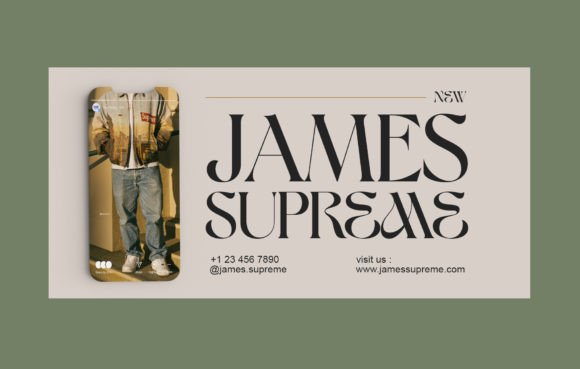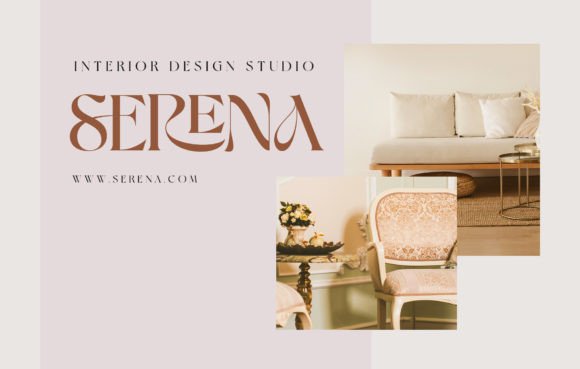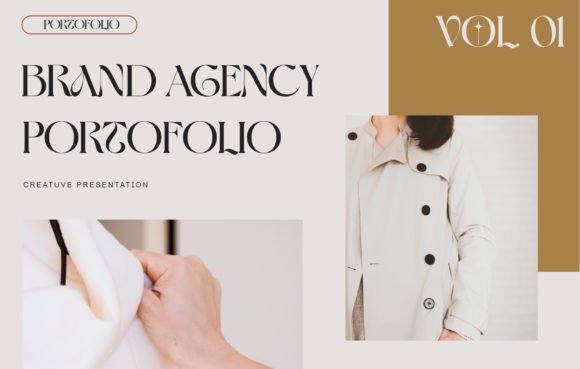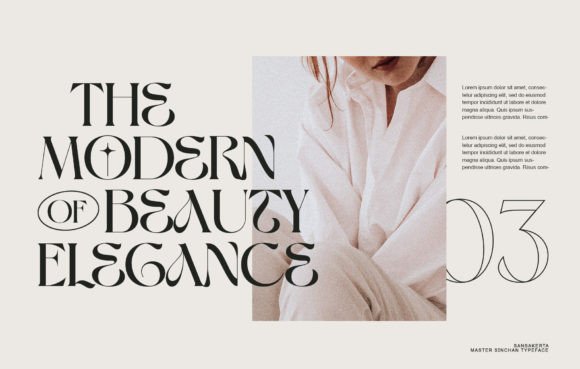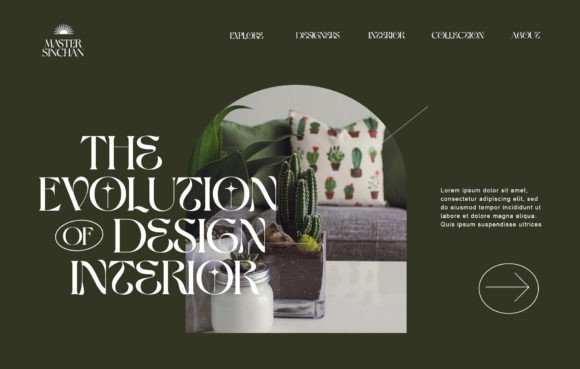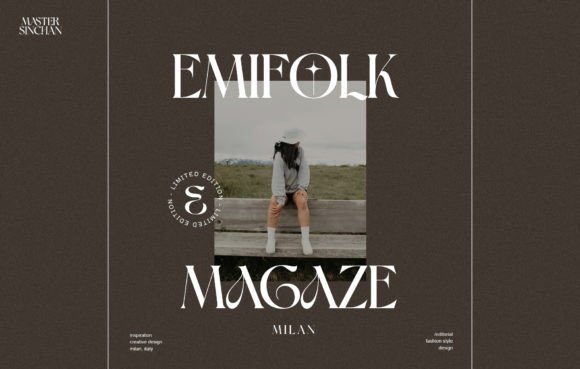
Introduction to Master Sinchan Font
Have you ever stared at a blank canvas, eager to bring your creative vision to life, only to be stuck on the perfect font? It’s a moment we’ve all been there, designers and non-designers alike. But what if I told you there’s a font that could change the game for your next project? Welcome to the world of Master Sinchan Font, a stunning serif font that’s about to become your new go-to design resource.
With its elegant and bold style, Master Sinchan Font is the perfect addition to any creative project. Whether you’re designing a beautiful wedding invitation, creating eye-catching social media posts, or working on a high-quality design piece, this versatile font is sure to impress. And the best part? It’s available for free download, making it a valuable asset for designers of all levels.
Key Features of Master Sinchan Font
- Unique, hand-drawn design for a creative project, ideal for those seeking a high-quality, free download.
- High-resolution font, suitable for printing and digital use, with a resolution of 300 DPI for crisp and clear text.
- Transparent background allows for easy customization and flexibility in design projects, making it an excellent design resource.
- Designed to be highly legible, even at small font sizes, making it an excellent choice for various creative projects.
- Master Sinchan Font is available in multiple weights and styles, providing designers with a versatile design resource for their projects.
Honest Review: Master Sinchan Font
I recently had the chance to work with the Master Sinchan Font, and I must say it was an interesting experience. As a designer, I’m always on the lookout for high-quality design resources that can elevate my creative projects. In this review, I’ll share my thoughts on what works well and what could be improved.
- Unique design style: The Master Sinchan Font has a distinctive look that can add a touch of personality to any design project.
- Transparent background: The font’s transparent background makes it easy to use with custom backgrounds or images.
- Limited character set: The font’s character set is limited, which may not be suitable for projects that require a wide range of characters.
- Not suitable for small text: The font’s design may not be suitable for small text sizes, as the letters can become blurry.
Overall, the Master Sinchan Font is a decent design resource that can add a unique touch to certain projects. However, it may not be the best choice for every design need. If you’re looking for a free font with a unique design style, the Master Sinchan Font is worth considering.
Master Sinchan Font
To get the most out of Master Sinchan Font, use it in combination with other design resources, such as graphics and images. You can also experiment with different font sizes and styles to create a unique and eye-catching design.
The Master Sinchan Font is commonly used in creative projects, such as logos, brochures, and business cards. It is also used in digital designs, such as social media graphics and website headers. The font is ideal for use in designs that require a high-quality, professional look.